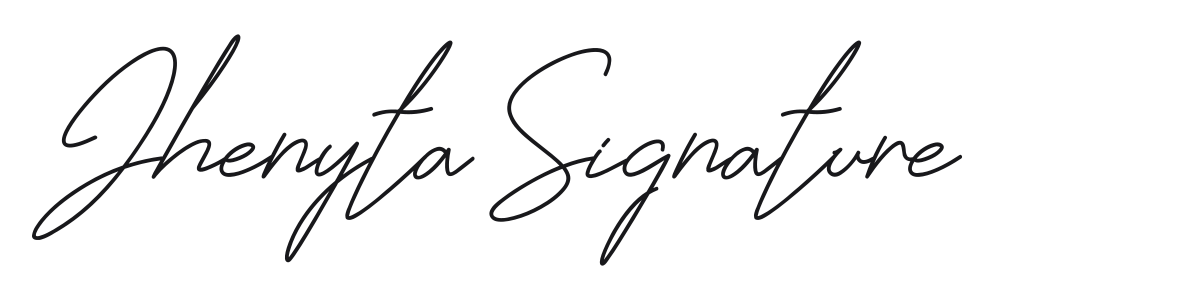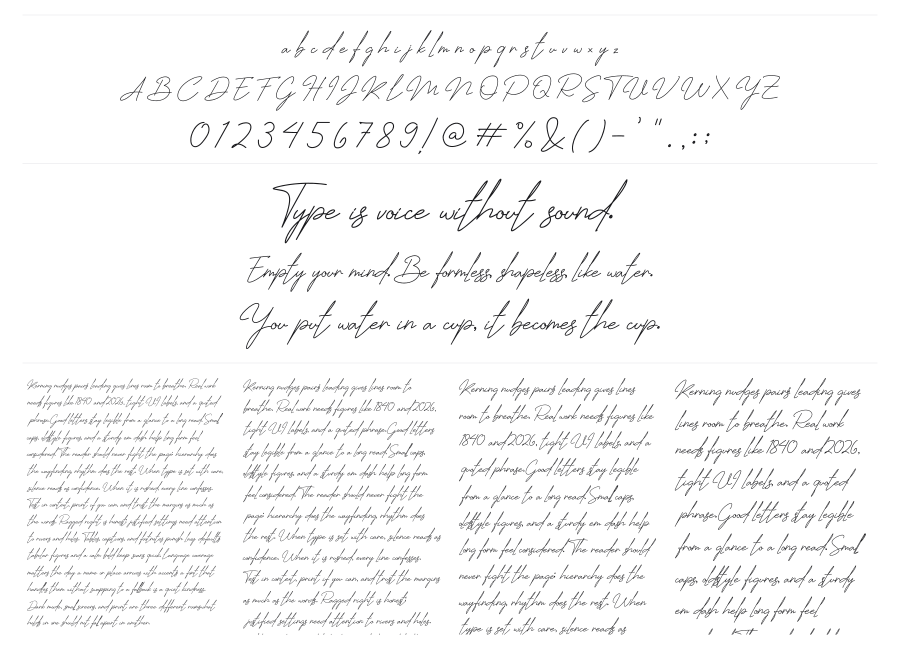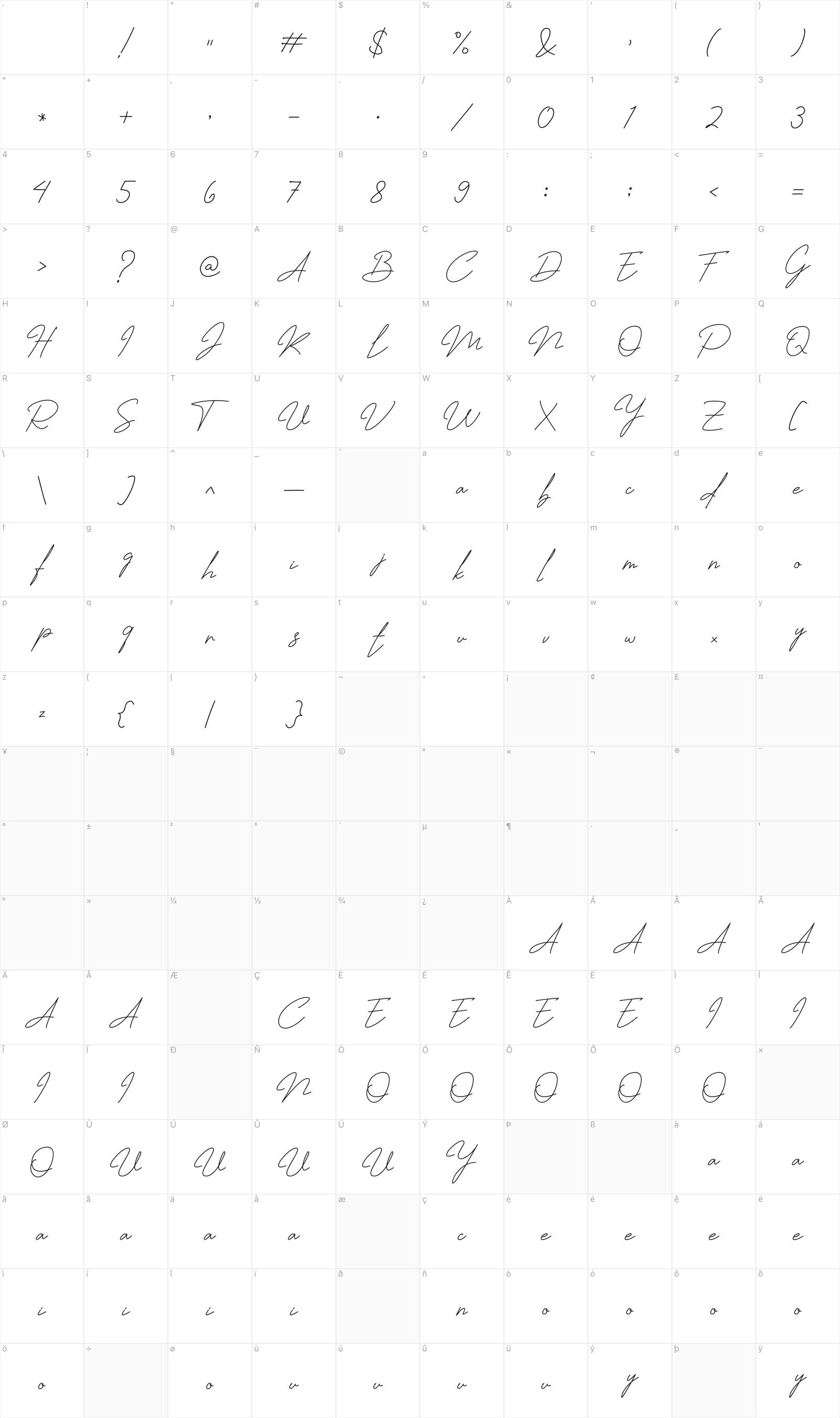
Jhenyta Signature
Jhenyta Signature is a thin, flowing script modeled after the look of a handwritten autograph, with loose looping strokes and long sweeping connections between letters. The near-monoweight construction keeps it light and airy, giving it that effortless pen-on-paper quality. It works naturally for brand identities, wedding stationery, and anywhere a personal, handcrafted touch is needed.